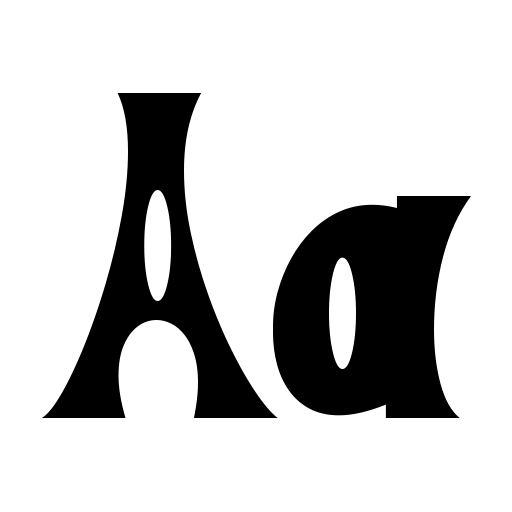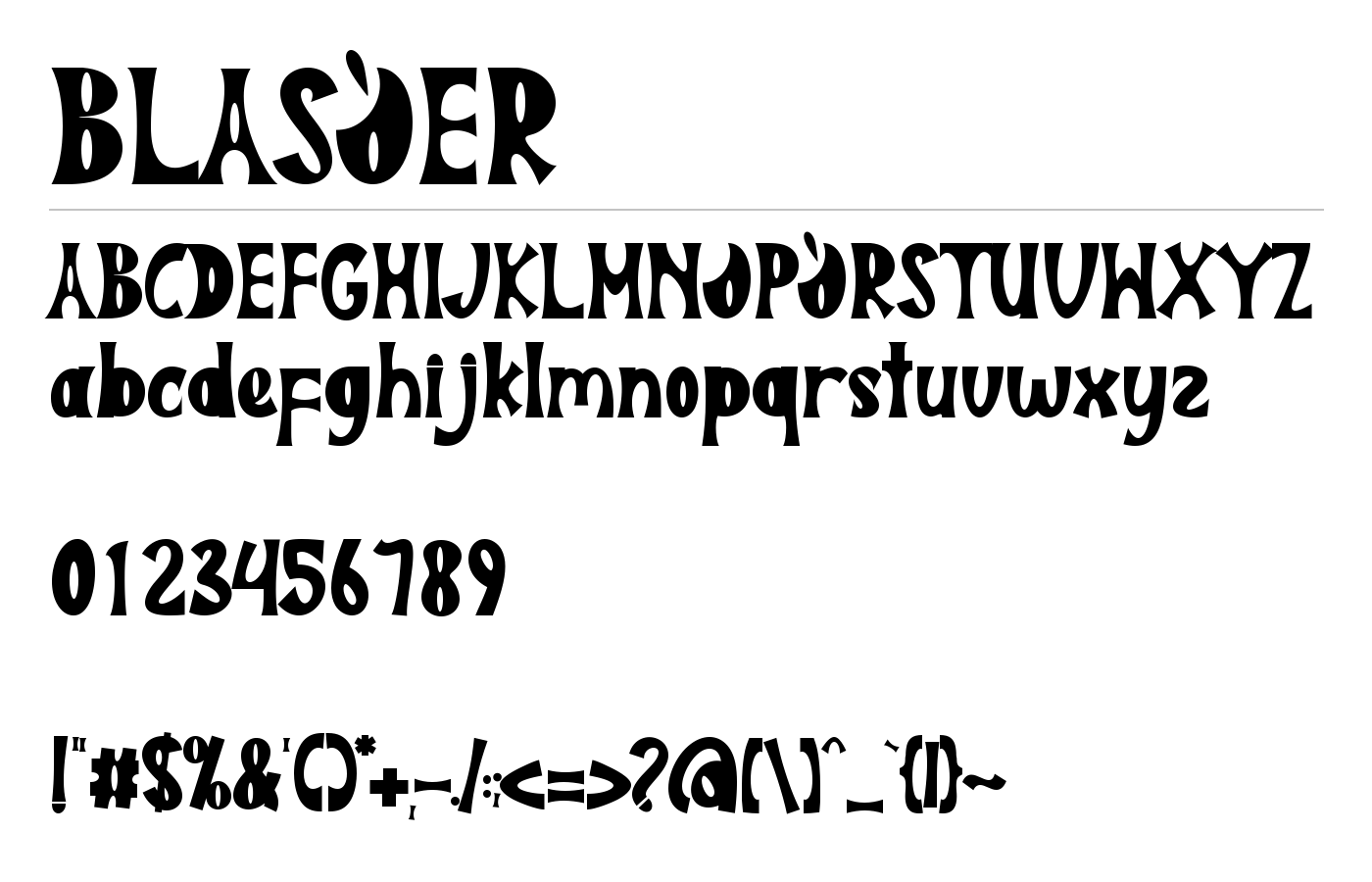
BLASQER is a bold, playful serif font with a unique, almost psychedelic character featuring high contrast and quirky, exaggerated curves. Its distinct letterforms, including unusual shapes in letters like A, R, and Q, give it a strong, eye-catching presence perfect for creative headlines, posters, and branding that seeks to stand out with a retro yet modern vibe. This font works well where a bold personality and artistic flair are desired, making it ideal for fashion, entertainment, and expressive design projects.
BLASQER Font
About BLASQER Font
| Font family | BLASQER Font |
| Designer | Yoga Letter 2023 (Isroni Yoga Prasetya) |